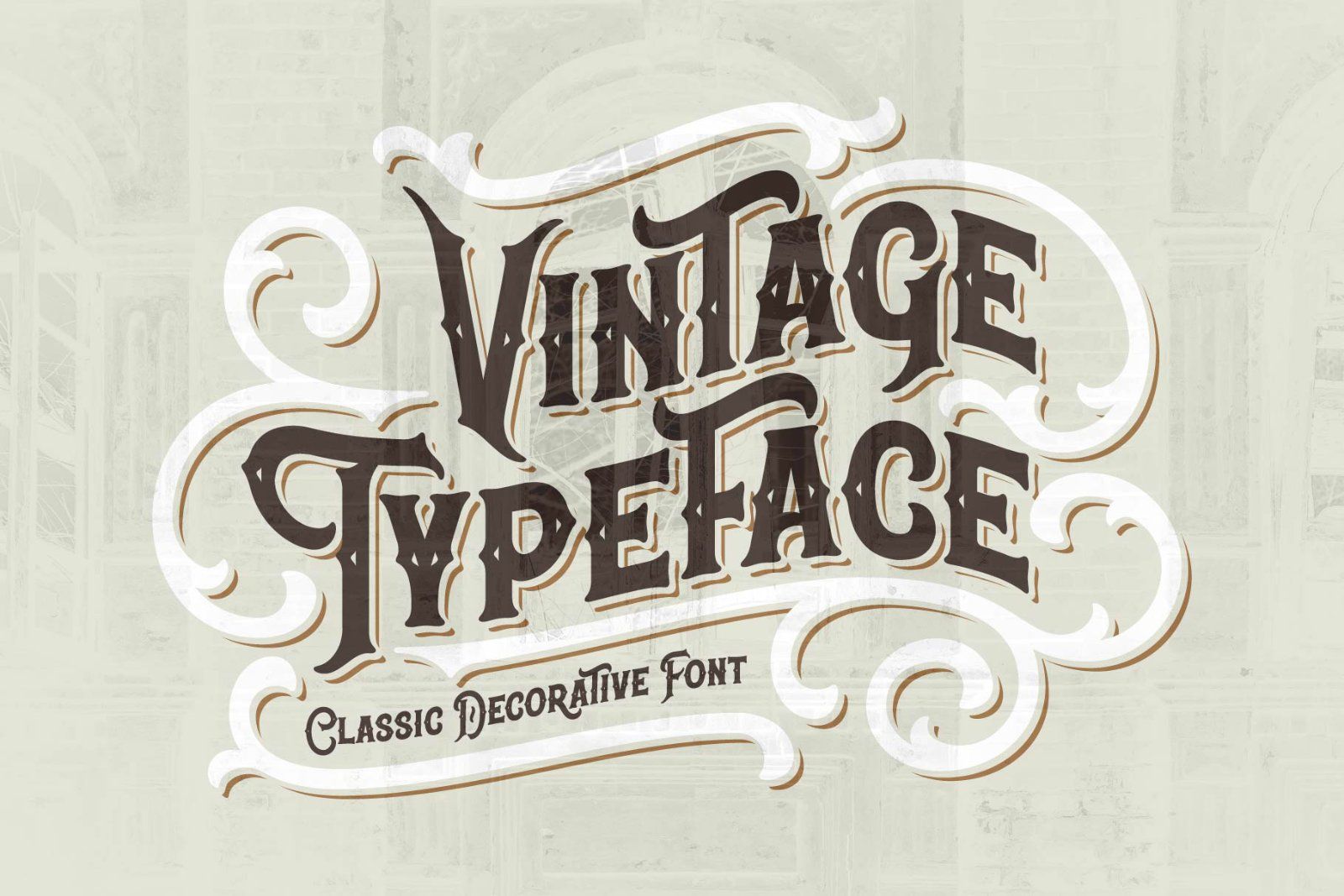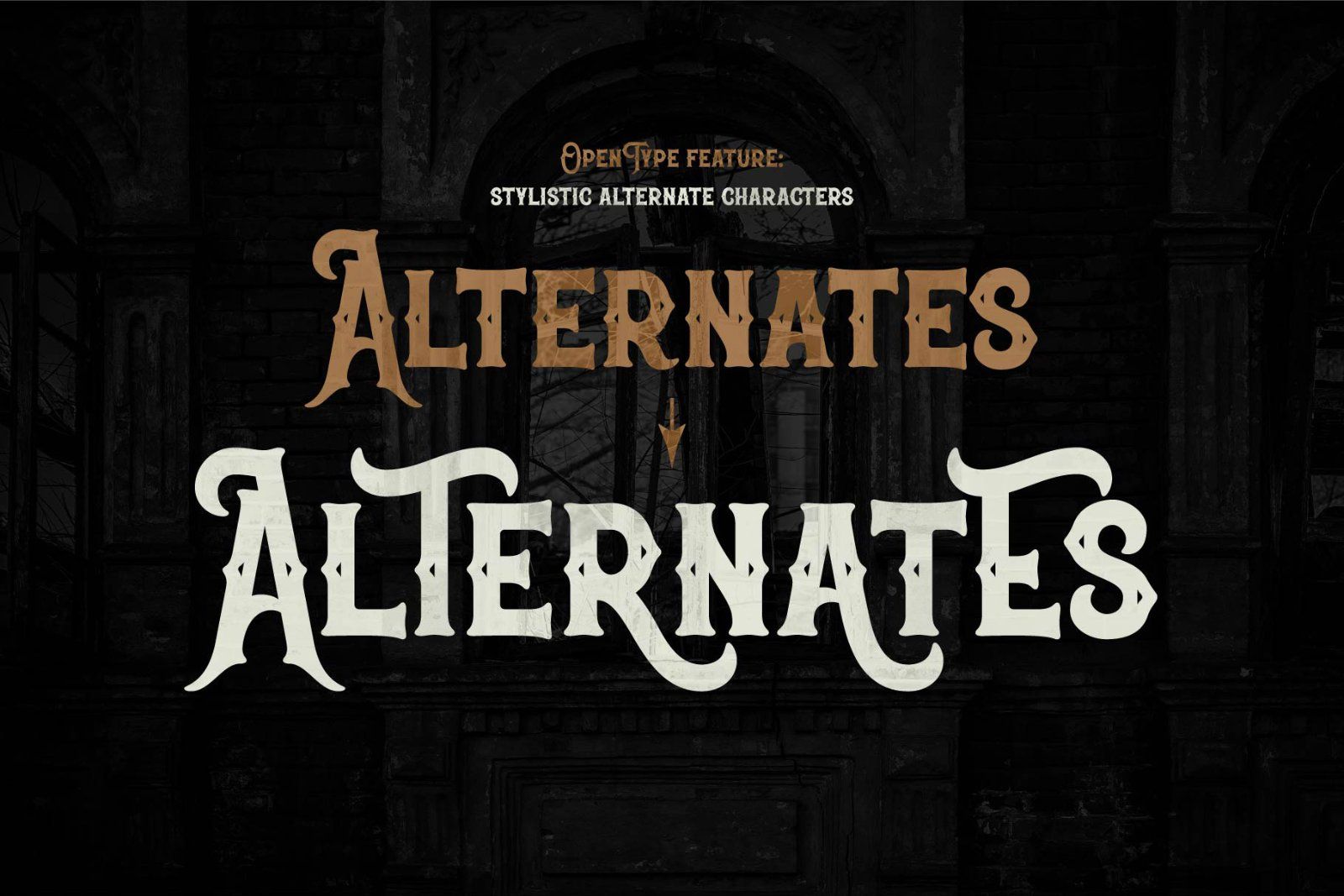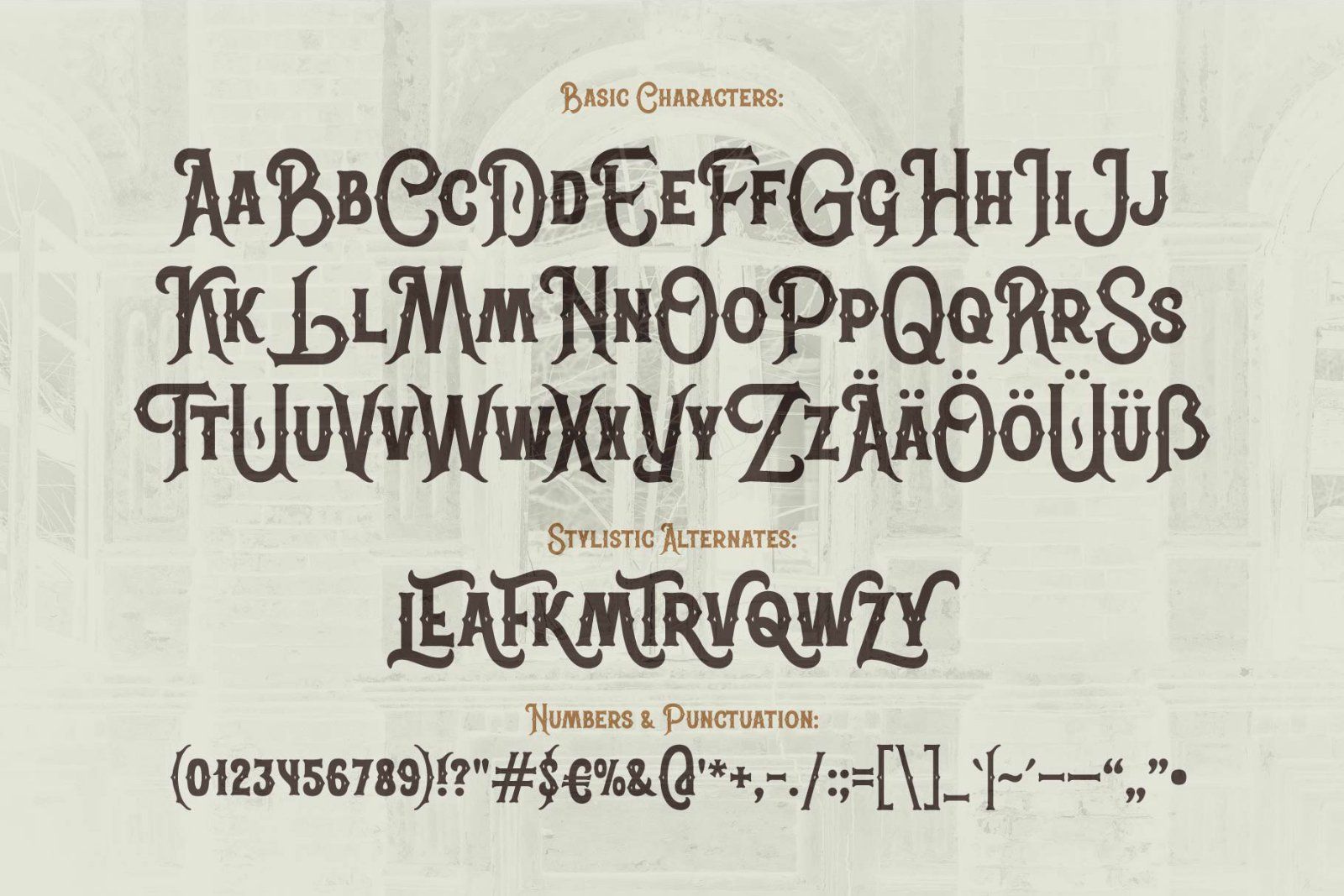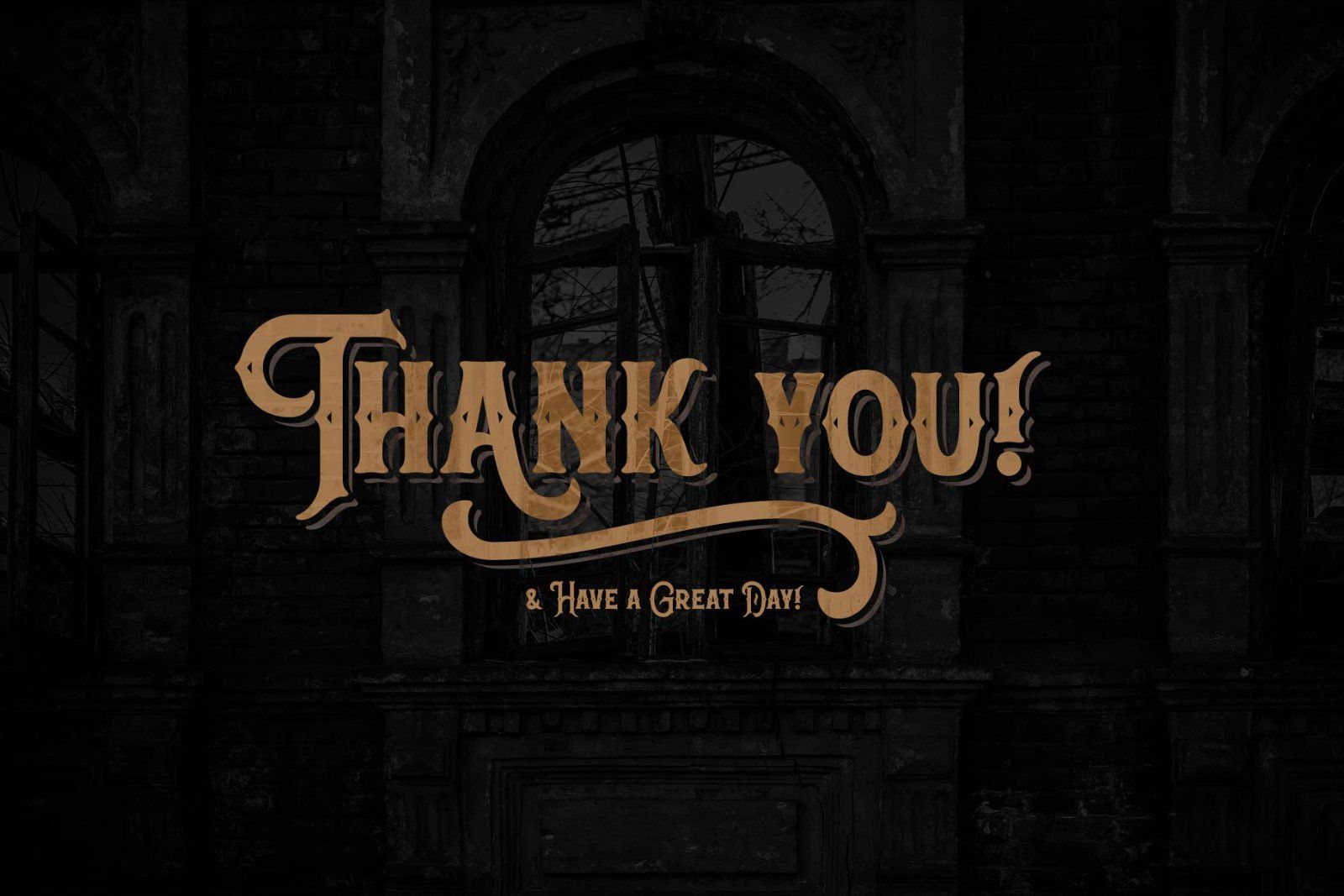
MarketplaceFontsClassic Heritage typeface
Hi! Introducing a vintage typeface named "Classic Heritage". It includes English & German characters and 13 stylistic alternate letters. Also in this package you will get a vector ornate in .eps & .ai formats.